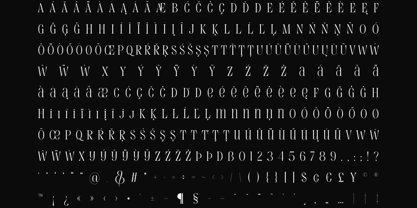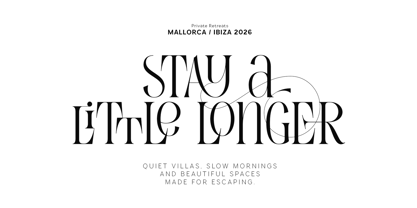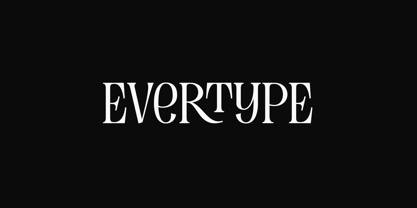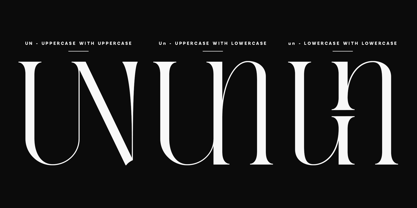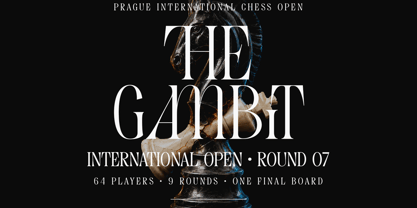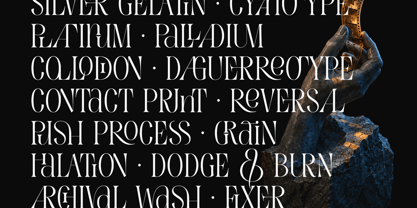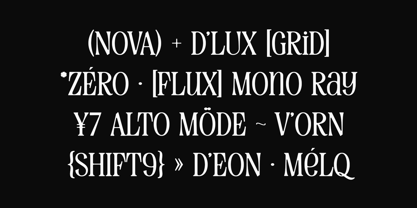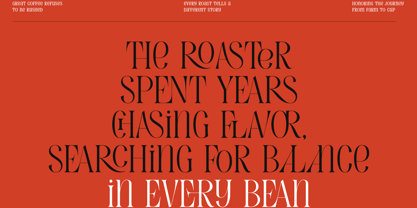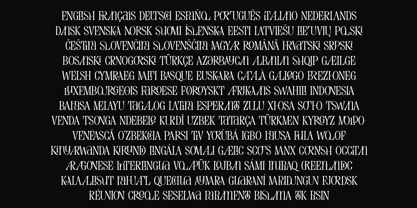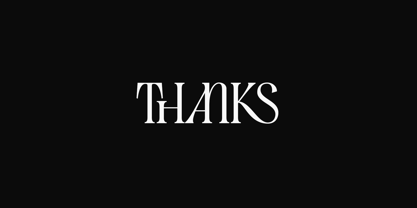
Evertype
The Evertype Font Family was designed by Vladimir Fedotov, Plamen Petrov and published by VP Creative Shop. Evertype contains 33 styles and family package options. More about this family
Evertype is an extensive display serif family that combines high-contrast editorial structure with a broad range of expressive stylistic interpretations.
The family consists of four related visual styles: Original, Soft, Blob and Ink. Each style preserves the underlying proportions and character of Evertype while introducing its own approach to shape, finish and typographic personality.
All four styles are available in Regular, Plus, Extra and Ultra weights with corresponding slanted versions, resulting in a total of 32 fonts.
The character set contains 1,032 glyphs, including 516 custom ligatures, three sets of alternate characters and a collection of 26 decorative swashes. These additional forms allow individual words and headlines to be adjusted well beyond the standard alphabet.
Original provides the most refined interpretation of the design, while Soft introduces smoother forms. Blob pushes the family toward more playful display typography, and Ink adds a less polished, textural character.
This stylistic range enables Evertype to move between editorial design, identity systems, fashion, packaging, publishing and expressive display applications without losing its underlying typographic voice.
Extended Latin support makes the family suitable for a wide range of multilingual projects.
Evertype is designed as a flexible display system for designers who need both consistency and substantial visual variation within one family.